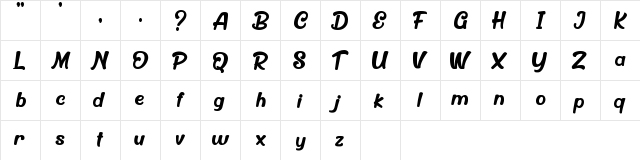
Billyer Regular
| Designer | Yugo Priyat Moko (Holydie Studio) |
Design Context for Billyer Typeface
Billyer is a composed and adaptable typeface that performs quietly and consistently across a wide range of design contexts.